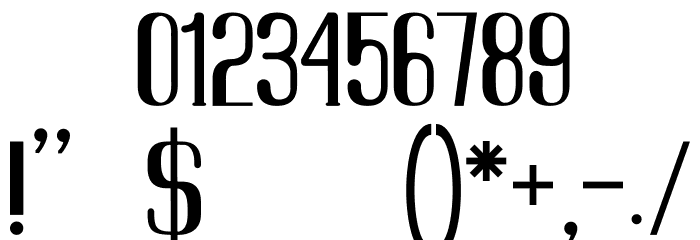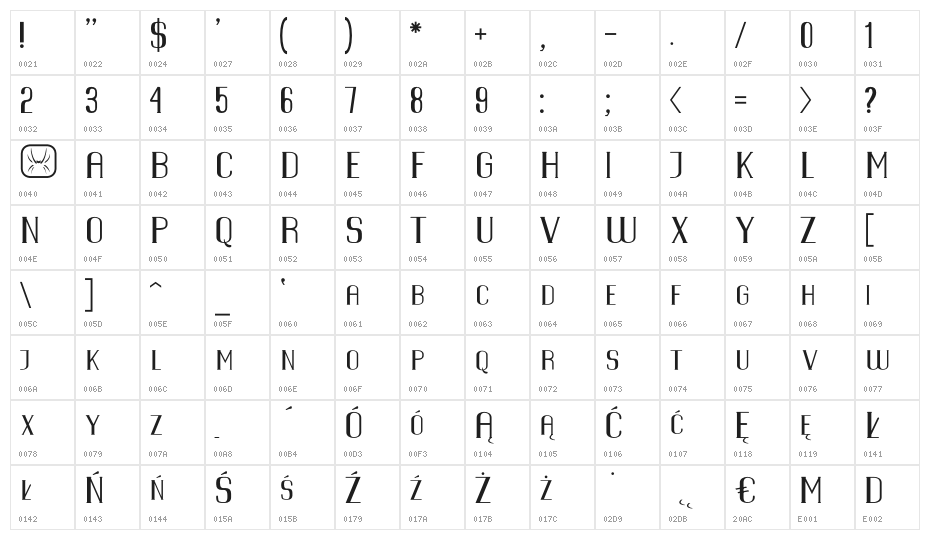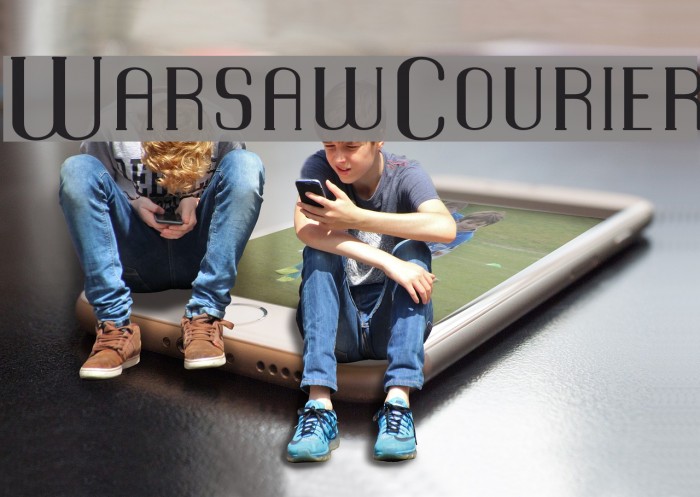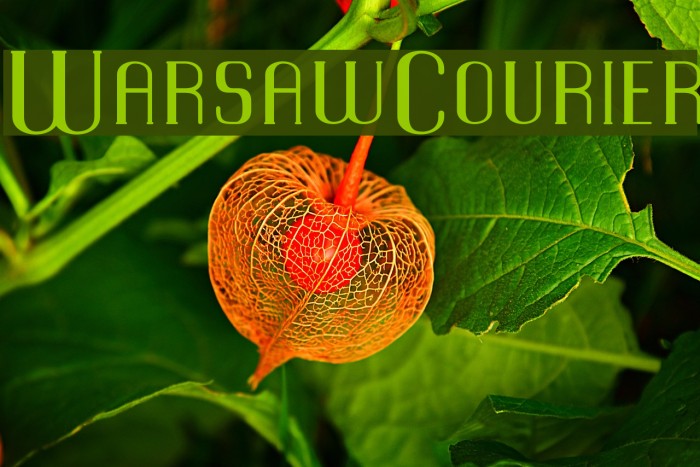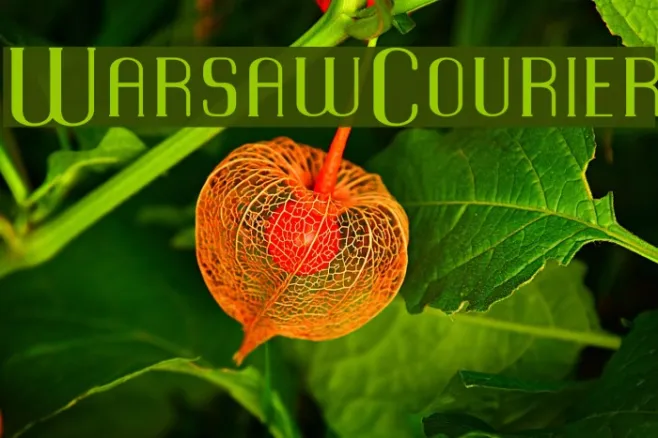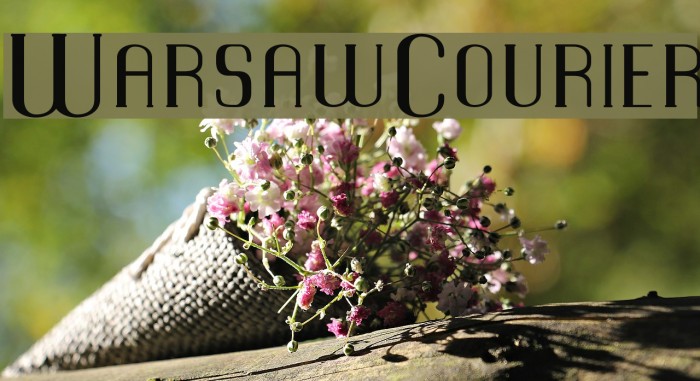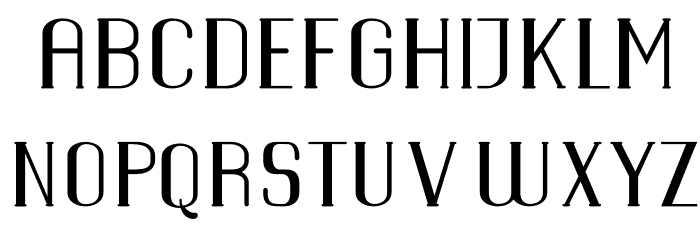
WarsawCourier Font
WarsawCourier Description
This font features a modern and sleek design with a touch of elegance. The uppercase letters are tall and narrow, with a slight curvature that adds a unique flair. The lowercase letters maintain a consistent style, providing a harmonious balance. The numerals are bold and clear, ensuring readability. Special characters are distinct and well-integrated into the overall design. The font's clean lines and subtle curves make it versatile for various applications.
Use CaseHeadlines, Logos, Branding
Proposed ProjectsIdeal for branding, editorial design, and advertising materials where a modern and sophisticated look is desired.